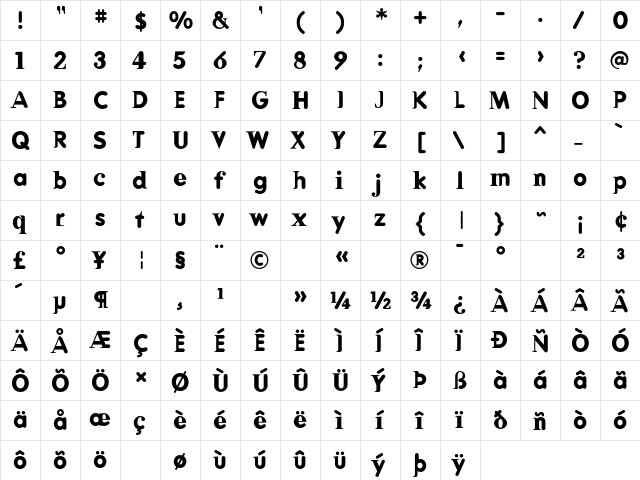
DeadHistory Bold
Design Context for DeadHistory Typeface
DeadHistory is a composed and adaptable typeface that performs quietly and consistently across a wide range of design contexts. Its bold stroke weight gives it real presence on the page.